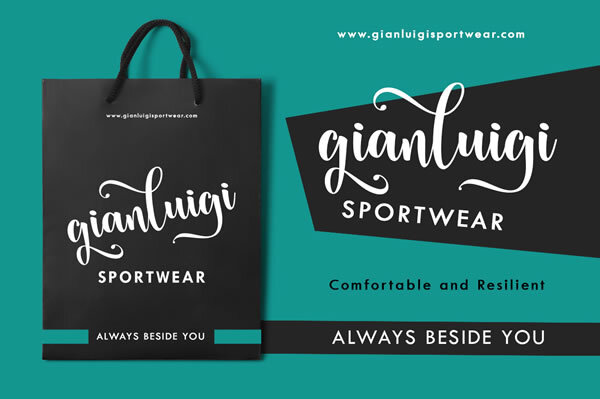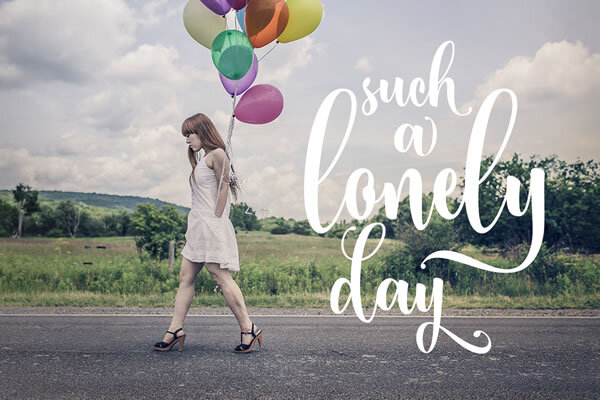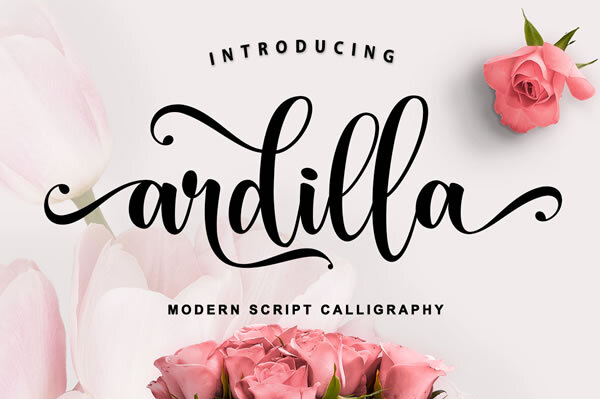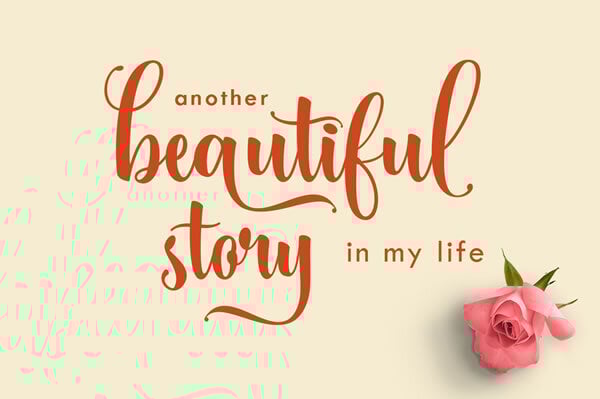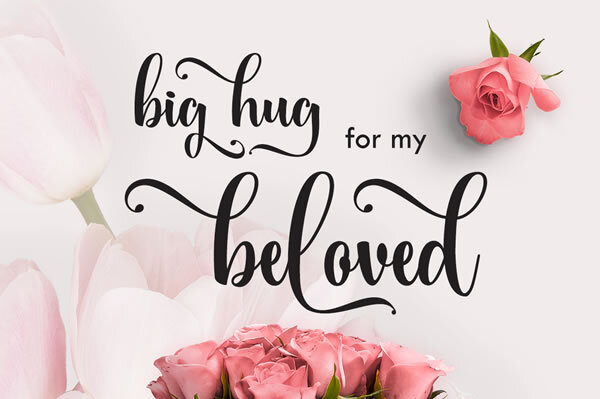
Ardilla Font
Ardilla is a handwritten script font with a classic calligraphy style. The smooth Ardilla font works great on greeting cards, wedding invites, birthday cards, and much more. Add this lovely font to your creations and take your designs to the next level!